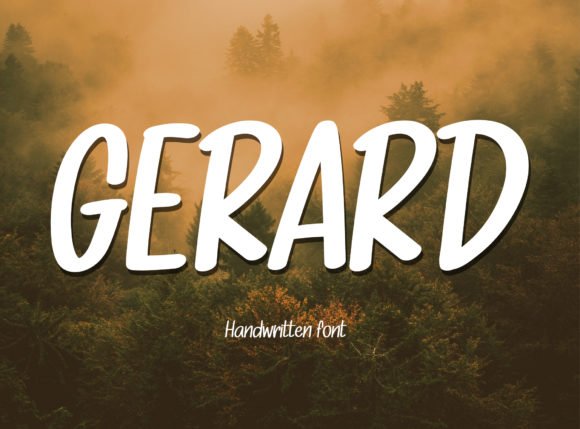
The Perfect Handwritten Touch
There’s something special about seeing a handwritten note or a custom logo that makes us feel seen and understood. It’s that personal touch that sets a brand apart and makes it memorable. For designers, finding the right font can be a game-changer. That’s why we’re excited to introduce you to Gerard Font, a clean and quirky handwritten font that’s perfect for all your creative projects.
Gerard Font is designed to add a touch of personality to your designs, whether it’s a logo, social media post, or crafty DIY project. Its unique style is both elegant and approachable, making it a valuable asset for designers who want to stand out from the crowd. With Gerard Font, you’ll be able to add a personal touch to your work that will leave a lasting impression.
Gérard Font Font Family Key Features
- Unique Characteristics: Gérard Font features a unique blend of modern and traditional elements, making it suitable for various design applications, from corporate identities to editorial content.
- Kerning and Ligatures: Advanced kerning and ligature system for improved readability and aesthetic appeal
Gerard Font Review
As a designer, I’ve had the chance to work with various fonts, and Gerard Font is one that caught my attention. Here’s my honest review.
Unique aesthetic: Gerard Font has a distinctive look that’s a blend of modern and classic elements. It’s perfect for those who want to add a touch of sophistication to their designs.
Legibility: This font is highly legible, making it ideal for body text. The clear letterforms and generous x-height ensure that your content is easy to read.
Playfulness: Gerard Font has a playful feel to it, which makes it perfect for creative projects or designs that need a bit of whimsy.
May not be suitable for formal documents: While Gerard Font is great for creative projects, it may not be the best choice for formal documents or situations where a more traditional font is required.
Not ideal for small text sizes: Gerard Font’s design can make it difficult to read at small text sizes, so be sure to test it out before using it in your design.
Overall, Gerard Font is a great addition to any designer’s toolkit. Its unique aesthetic and legibility make it a versatile choice for a variety of projects. Just be mindful of its limitations, and you’ll be able to use it to create stunning designs.
Practical Application Guide for Gerard Font
Tips for Getting the Most Out of Gerard Font
To get the most out of Gerard Font, use it in conjunction with high-quality images and graphics. Experiment with different font sizes, colors, and styles to achieve a unique and sophisticated design. Additionally, consider using Gerard Font in combination with other elegant fonts to create a harmonious and professional-looking design.
Gerard Font is commonly used in high-end designs, such as magazine covers, posters, and brochures. It is also suitable for creating professional-looking presentations, reports, and documents. Additionally, Gerard Font can be used to create elegant and sophisticated graphics for branding materials, invitations, and social media posts.
Comparison to Gerard Font: Open Sans is more modern and clean, while Gerard Font has a more classic feel. Open Sans is also more versatile and suitable for a wider range of designs.